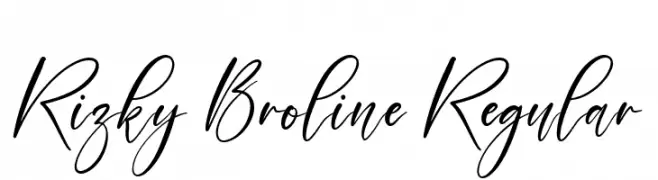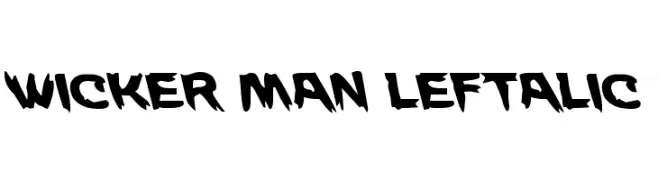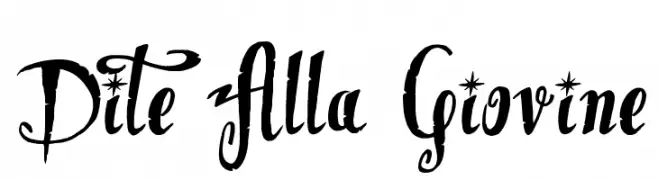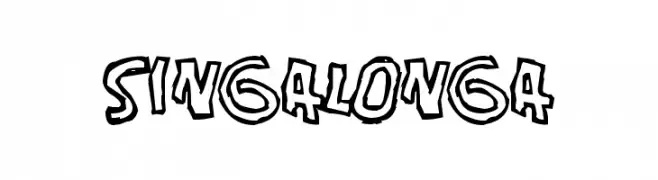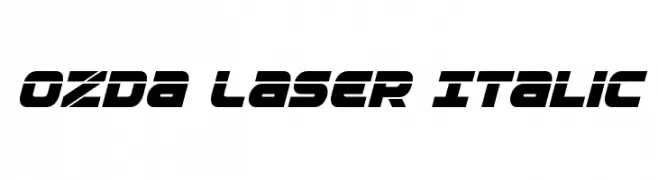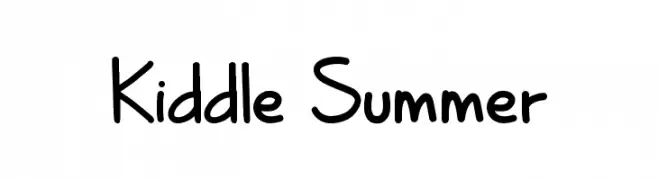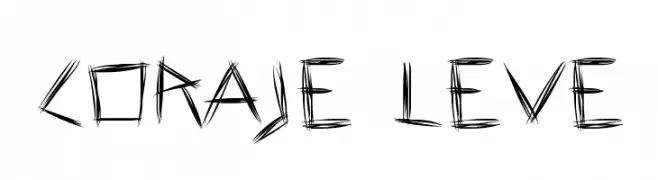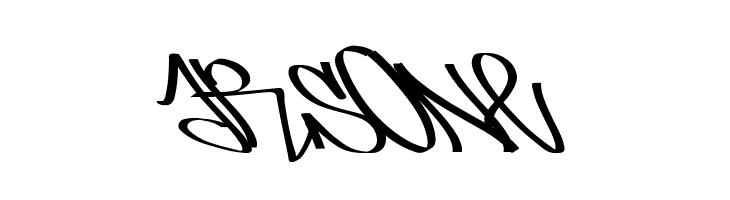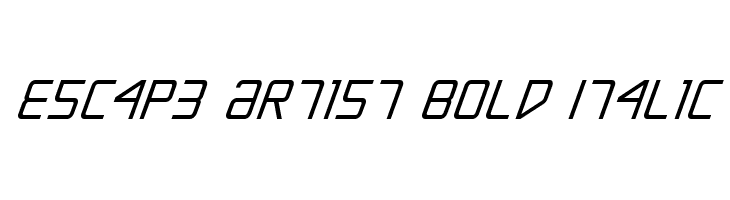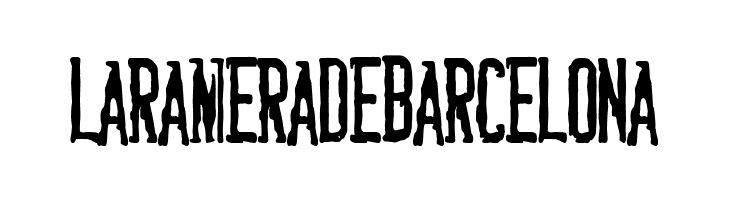
Elegant script font with a handwritten style.
A bold, wide, and playful font with a comic-inspired style.
A bold, jagged font with sharp, angular cuts and an edgy appearance.
An elegant, calligraphic font with decorative swirls and flourishes.
A lively, handwritten-style font with a casual and personal touch.
A playful, hand-drawn font with a bold, cartoonish style.
A bold, italic, futuristic font with sharp angles and a dynamic style.
A playful, handwritten font with a casual and creative style.
An edgy, hand-drawn font with sketch-like strokes and a dynamic, raw appearance.
A fluid, handwritten font with an artistic and casual style.